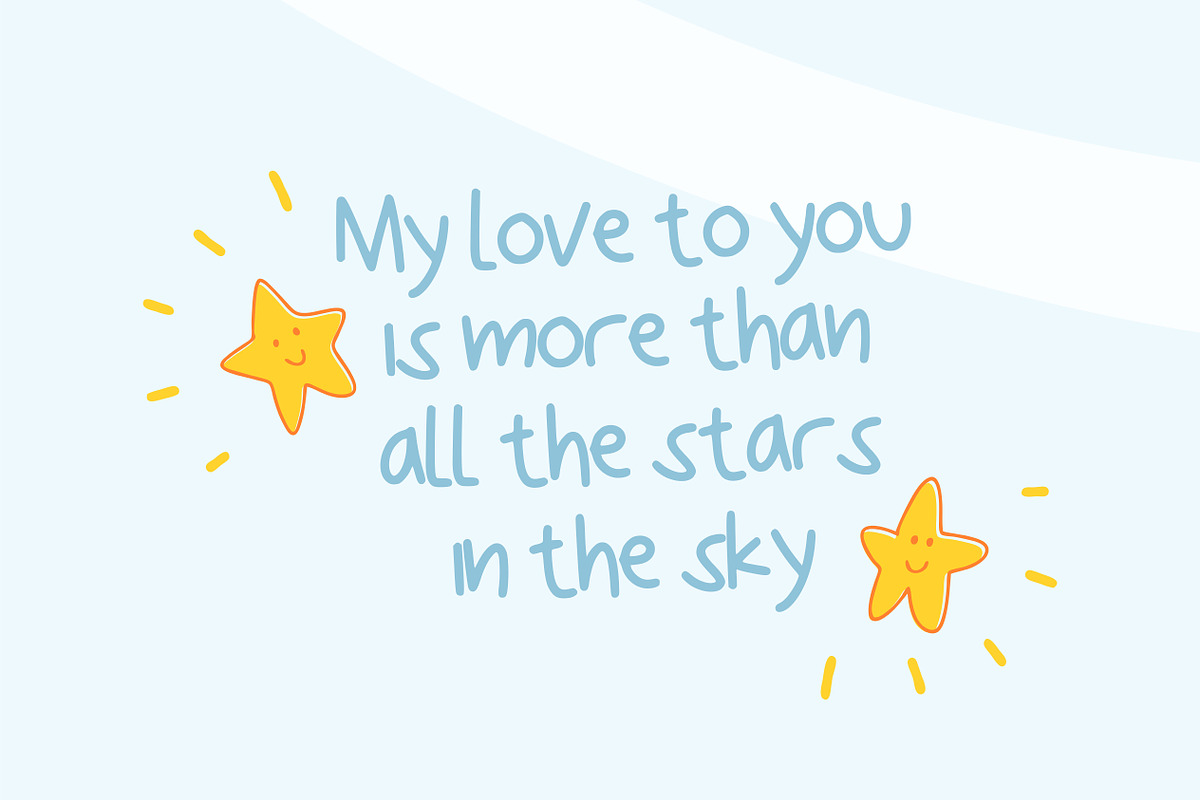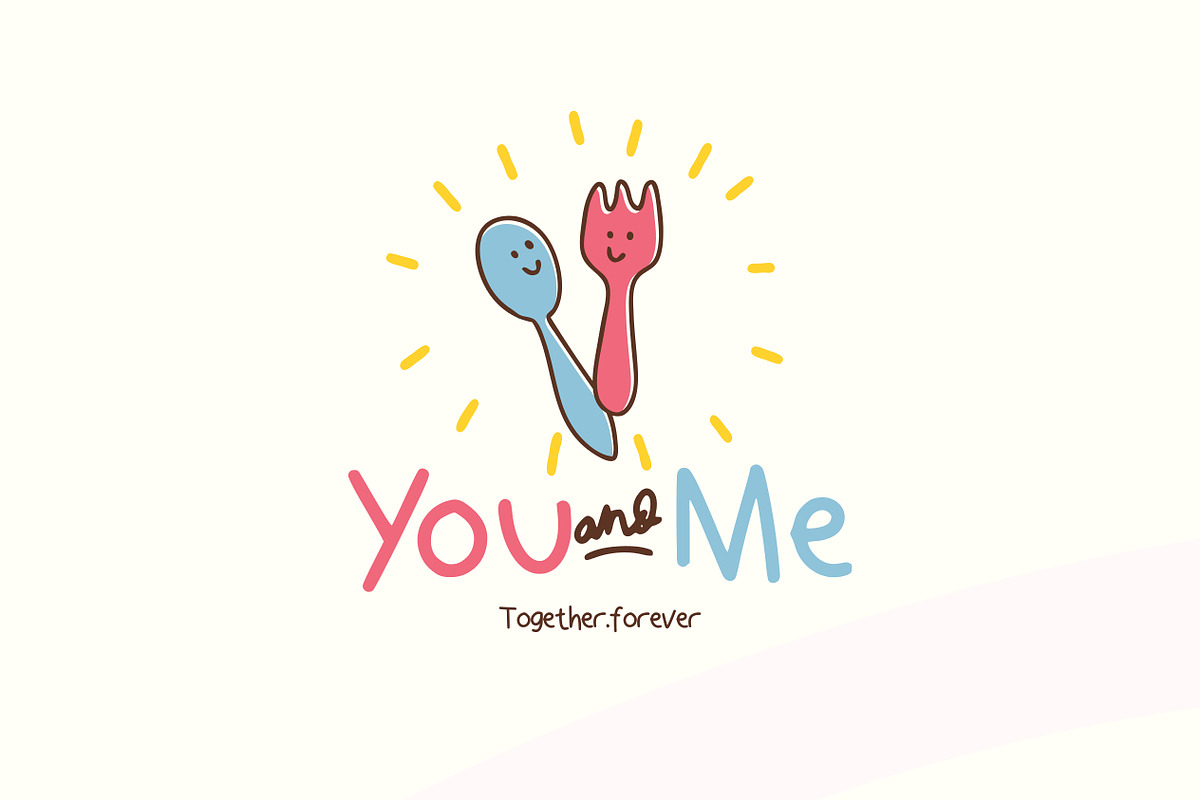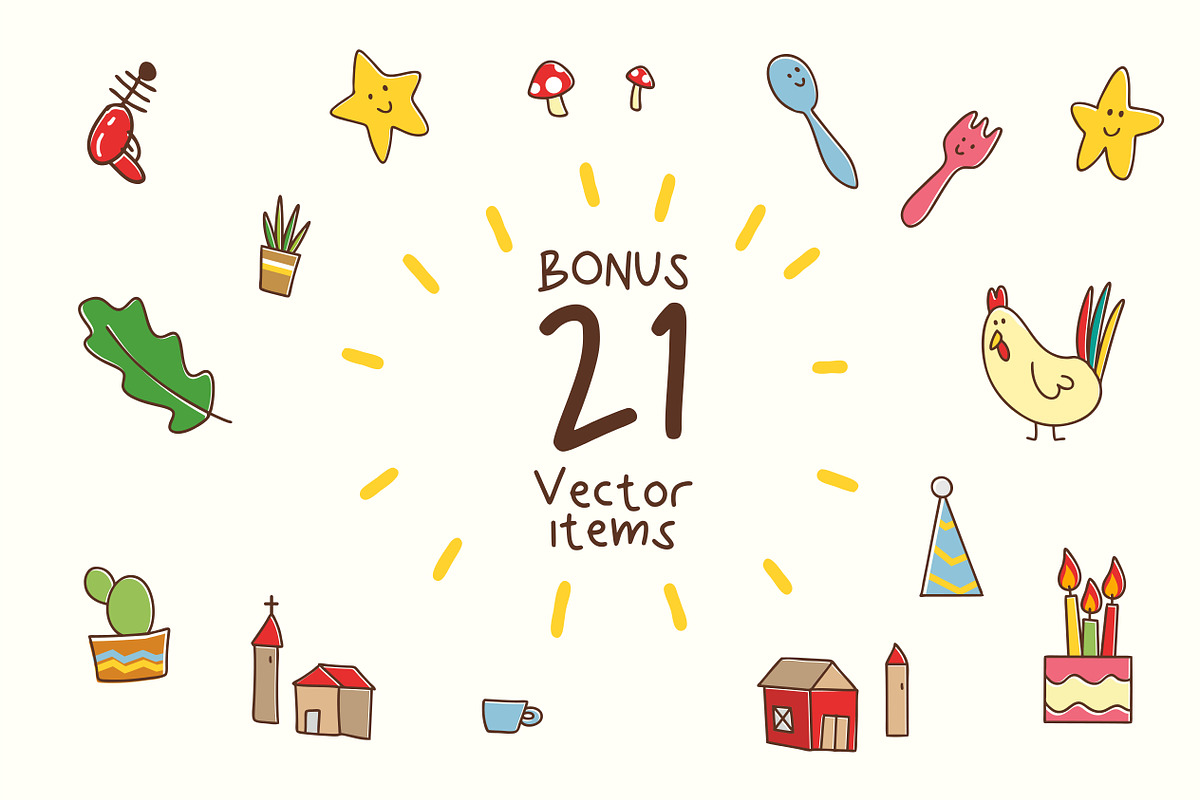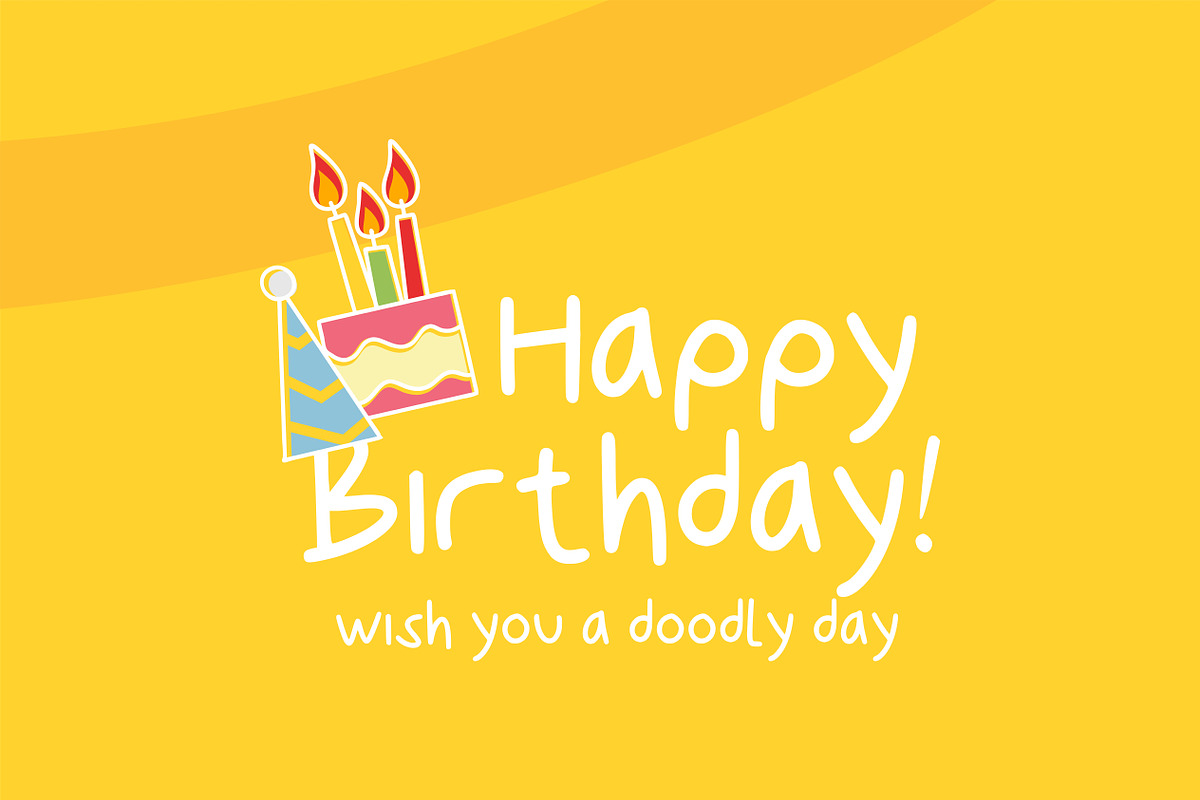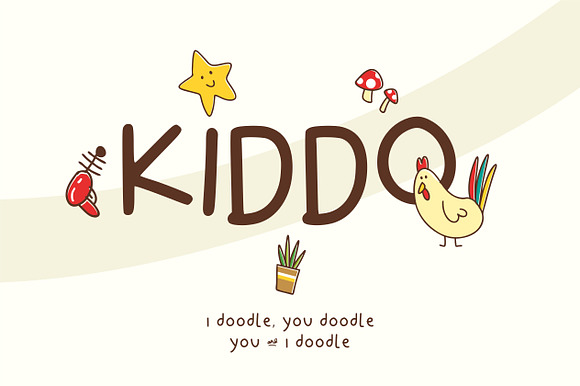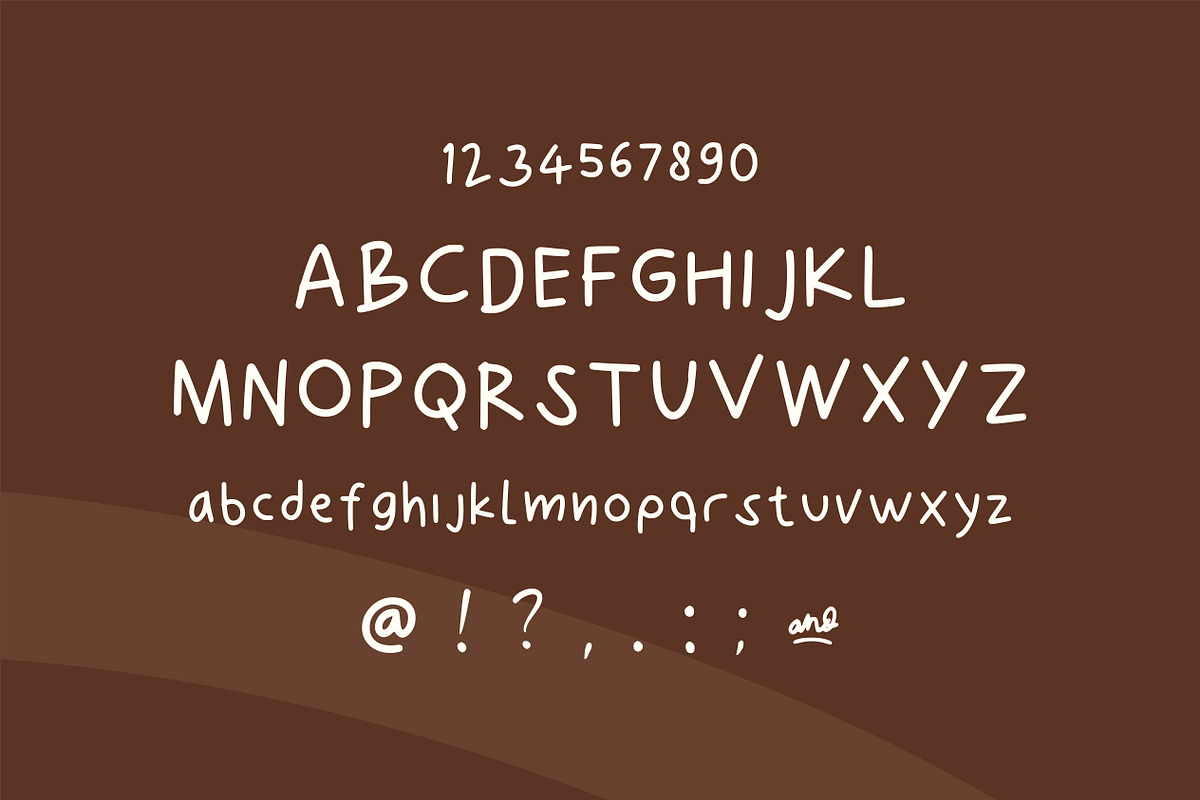
Kiddo font + bonus doodles
Kiddo is a handwritten font filled with honesty, love and imagination. perfect if you want to give a personal touch in your work or simply make something fun out of it :)